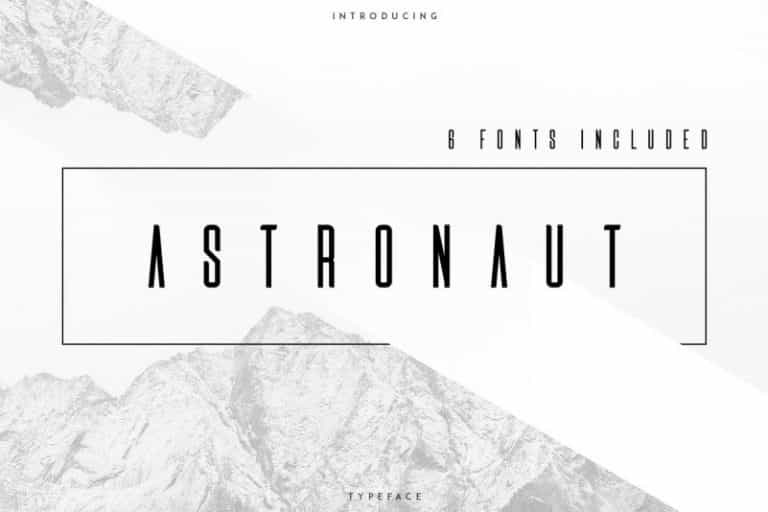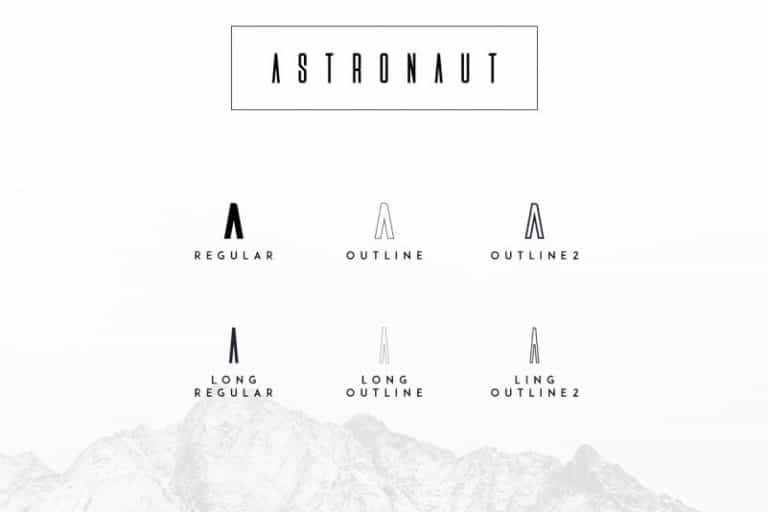
Astronaut Font is a new display typeface designed by VPcreativeshop. Astronaut Typeface is a fine, clean font with 6 styles and multilingual support. It is a font that can be used in large and small sizes which makes it such a versatile font. Astronaut is the best for branding projects, home-ware designs, product packaging and magazine headers or it can be used as a text overlay to any background image.